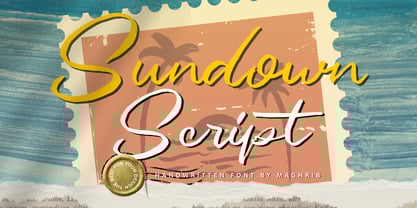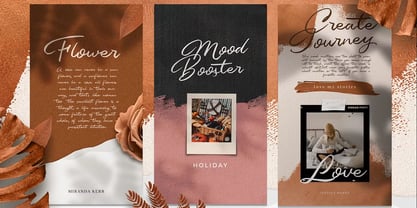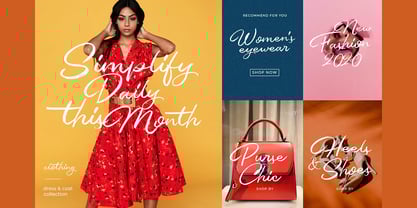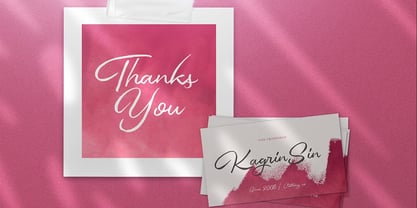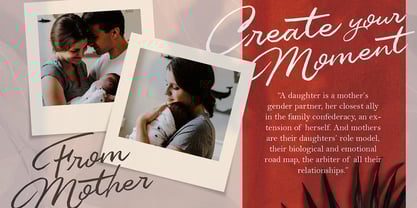
Sundown Script
by Maghrib Type
The Sundown Script Font Family was designed by Rizky Setyaludin and published by Maghrib Type. Sundown Script contains 1 styles.
Sundown Script is a modern and elegant handwritten font, crafted with smooth curves and natural flow. Its sleek letterforms add a personal and warm touch, making it ideal for a wide range of design projects—from wedding invitations, feminine branding, and inspirational quotes to stylish product packaging.
With a perfect balance between simplicity and sophistication, Sundown Script brings a friendly yet professional vibe to any visual message.
Designers: Rizky Setyaludin
Publisher: Maghrib Type
Foundry: Maghrib Type
Design Owner: Maghrib Type